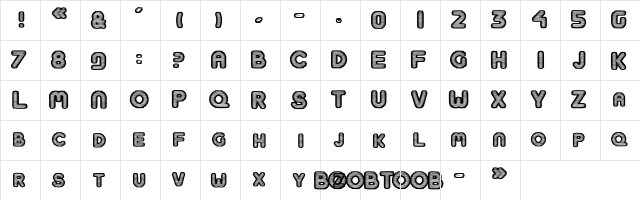
BoobToob Regular
Design Context for BoobToob Typeface
BoobToob is a composed and adaptable typeface that performs quietly and consistently across a wide range of design contexts.